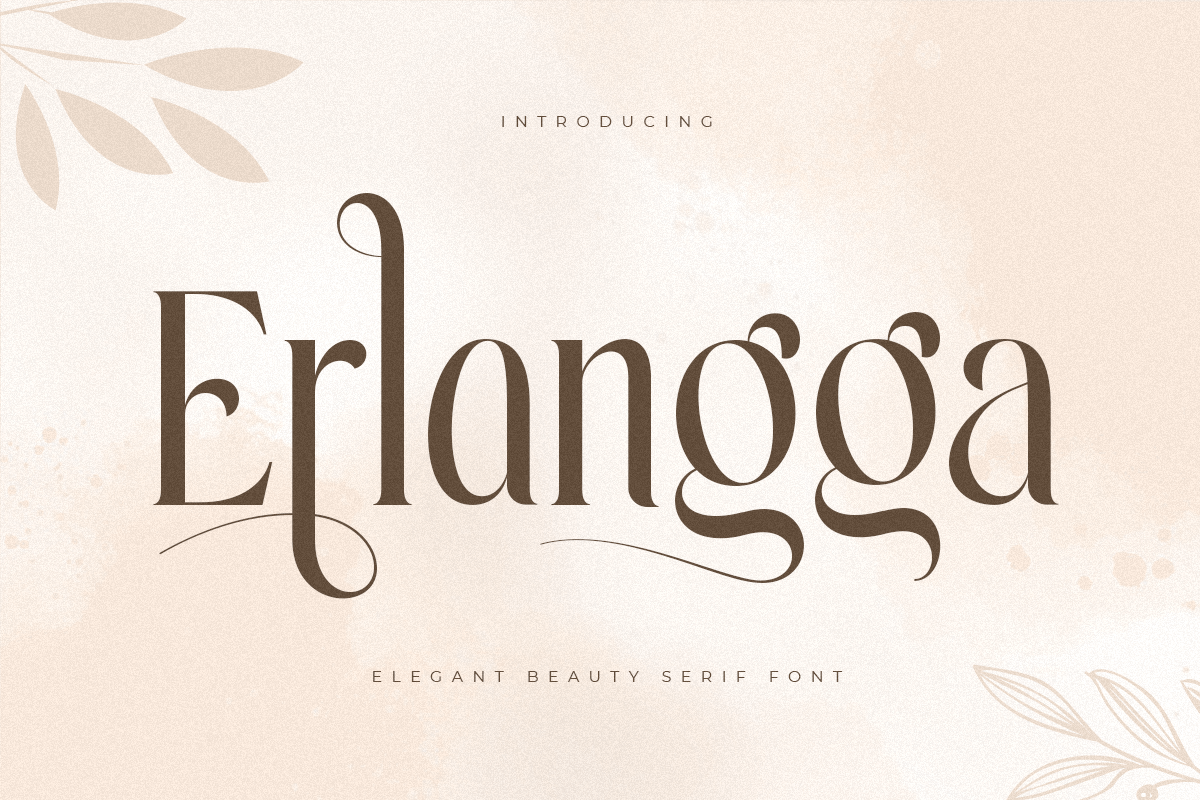
Erlangga
A Serif font that we created special for elegant branding needs, with extra ligatures in unique shape will be ready to add value of your brand. It so nice to leverage designer or product owner that need solutions to make their design look more classy and modern. And specially for this font, We prepared any ligatures characters to help you create unlimited variations for your creative needs.
Erlangga Elegant Beauty serif font ready with:
Any options to get creative variations (combination of Alternatives)
Preview as a inspirations that you can do with Erlangga font